As such, the following list of best new fonts offers up a good range of fonts, from spring-inspired styles to more evergreen selections.
Alti
Alti is a geometrical sans serif font with a single style. Inspired by modernism and Art Deco, Alti combines extra-tall ascenders (see the lowercase “d”) with eccentric angles (the lowercase “e”) and balance (the capital “H”).
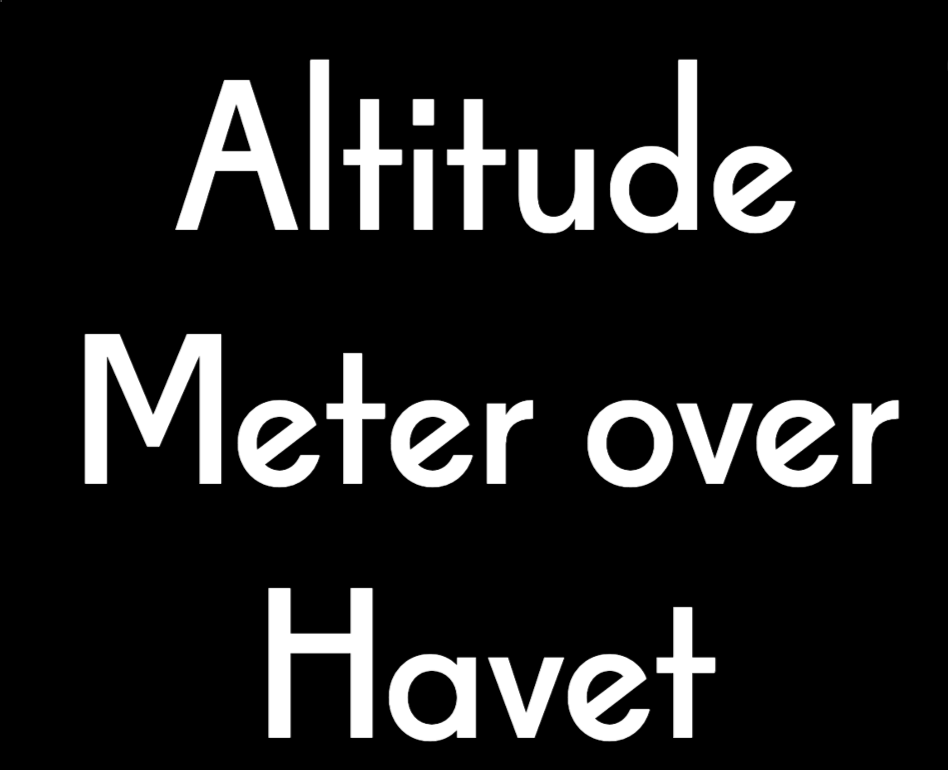
Antodits
Antodits is a handwritten font that looks similar to something we might scribble on a Post-it note, a moving box, or a label. If you want to give logos, hero images, social media banners, and other graphics a casual hand-drawn feel, this would be a fun one to play with.
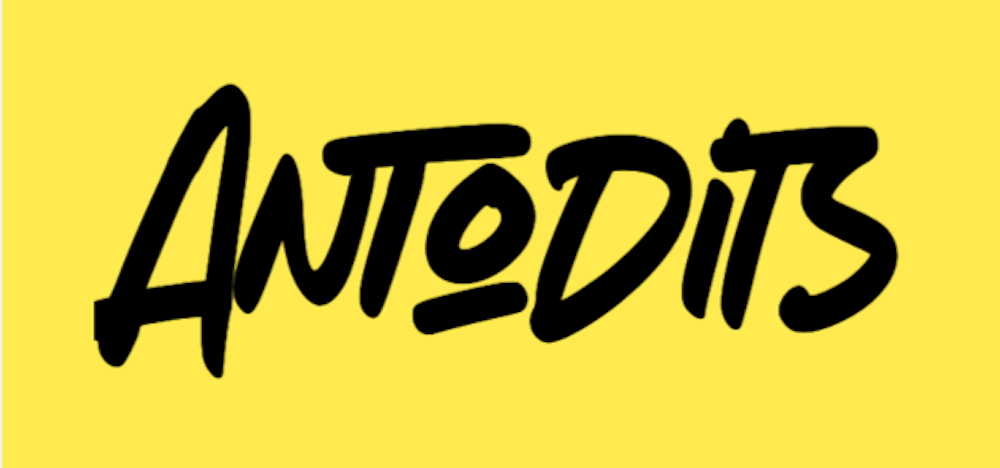
AW Conqueror Sans
AW Conqueror Sans is a combination of geometric and humanist sans serif styles. There are 16 styles available, and the font designer recommends using them for different moods or tones. The AW Conqueror Sans family could be the one you use for various brands while giving each a unique style of their own.
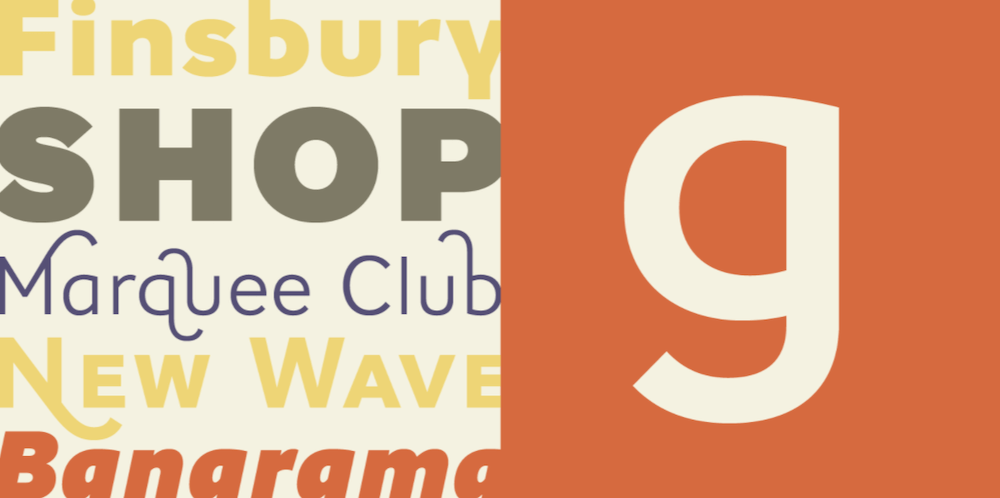
Birra
Birra is an interesting family of fonts. Unlike the usual typography styles and weights we’re accustomed to (e.g., Thin, Heavy, Italic), Birra’s styles are inspired by different types of beer and the breweries they’re found in — Stout, Saison, Pils, and more.
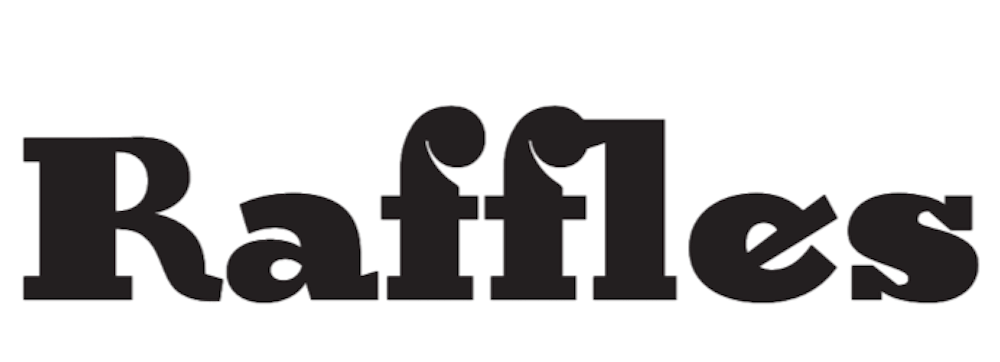
Boby Marlyn Script
Boby Marlyn Script is a delicate cursive font in just one style. The designer suggests using it for romantic themes, so it would go nicely with matters related to wedding planning, florist shops, relationship retreats, and parenting blogs. It could also work well on marketing images and banners around holidays like Valentine’s Day and Mother’s Day.
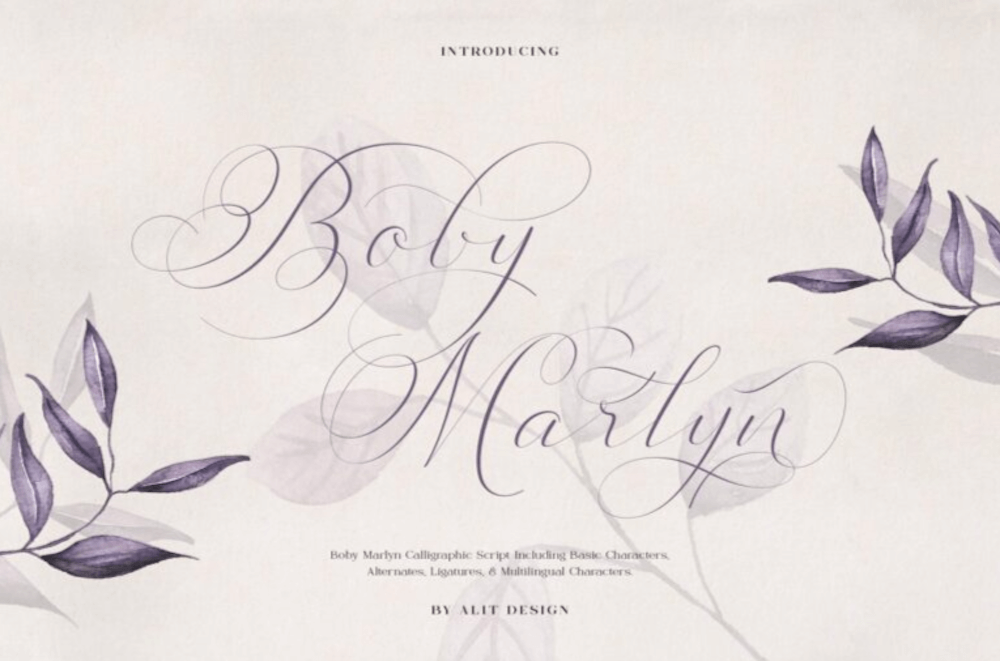
Delvard
The release of Delvard has brought us three new fonts: Delvard Serif Display, Delvard Serif Subhead, and Delvard Serif Text. There are 24 styles in this collection of art nouveau-inspired serifs, so there’s a lot you can do with this creative and legible font.
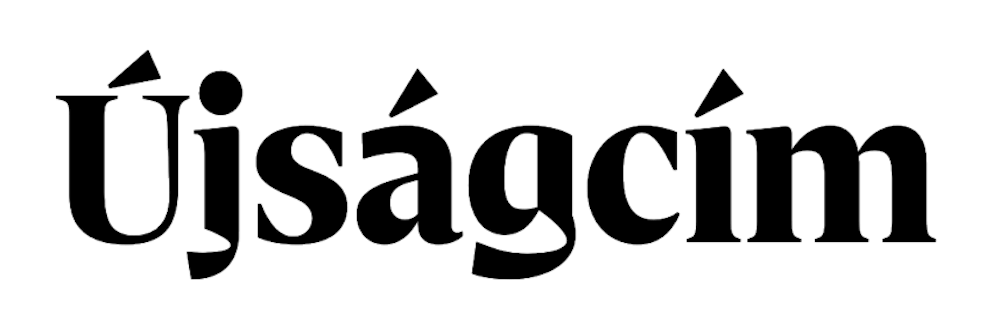
Evoque Text
Evoque Text is a humanist serif family of 14 fonts. While there are bold styles that would work effectively in headlines, this font was explicitly designed to give website visitors a comfortable reading experience over long passages.
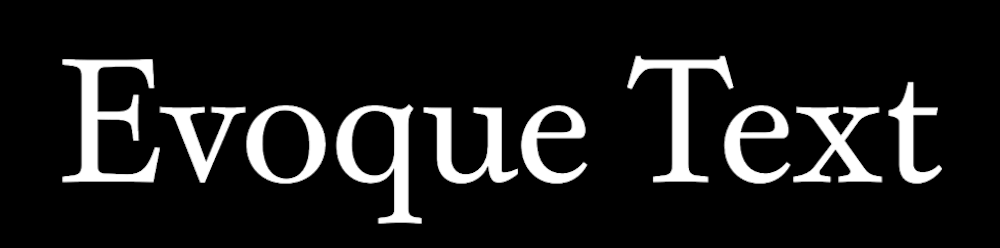
Forme
Forme Grotesque and Forme Grotesque Arabic is a sans serif font inspired by 19th century British Grotesque font styles. Forme Grotesque is a beautiful multilingual font that would be a great addition to various websites.
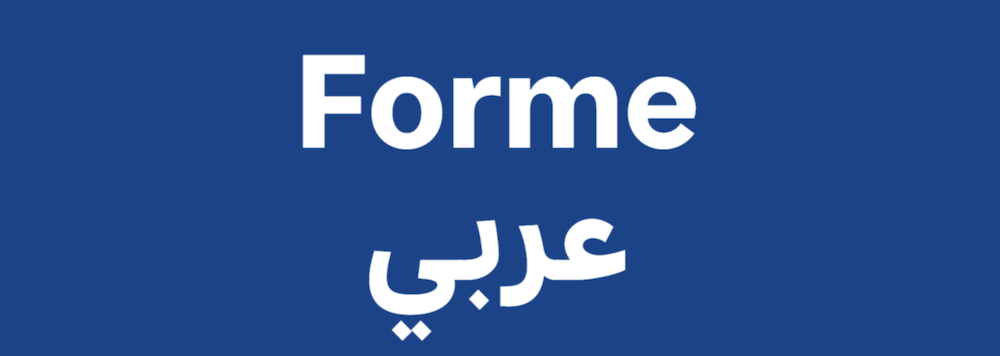
Gamer Station
Gamer Station comes in two styles: Regular and Outline. This cartoon-inspired typography would be a good one to use on websites that sell kids’ products and experiences — books, toys, entertainment centers, etc. It could also be instrumental in gaming app design.
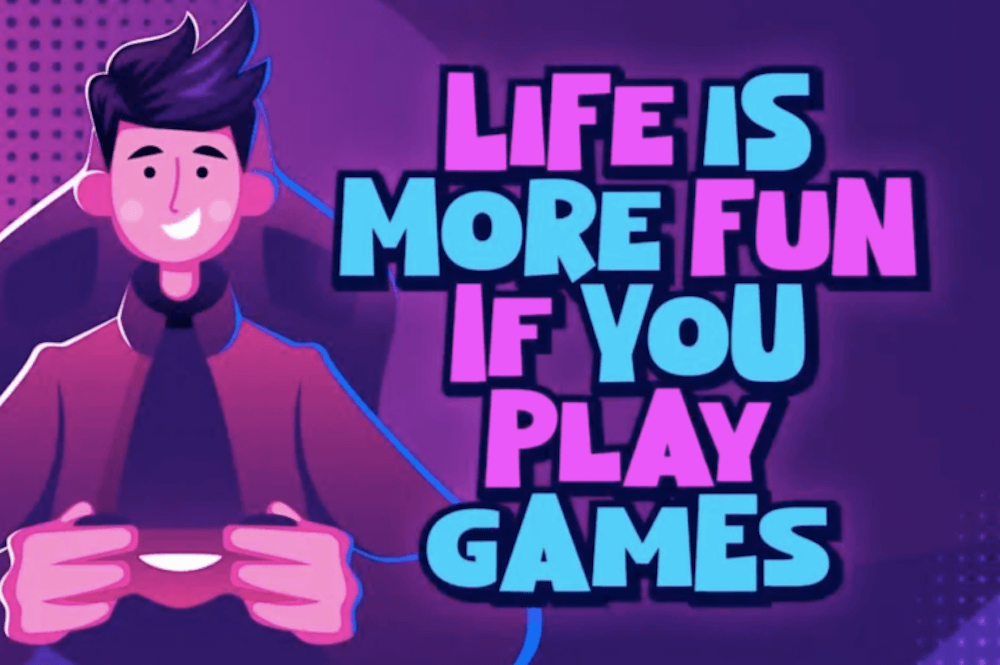
Hyperpolar
Hyperpolar is a retro all-caps font inspired by 1950s crime stories. While the gritty vibe is most obvious in the Brush styles, the Regular and Outline styles take a more subdued approach. If you’re looking to add drama or intrigue to your logo, headers, or marketing graphics, you have obvious and subtle ways of playing it up with this font.
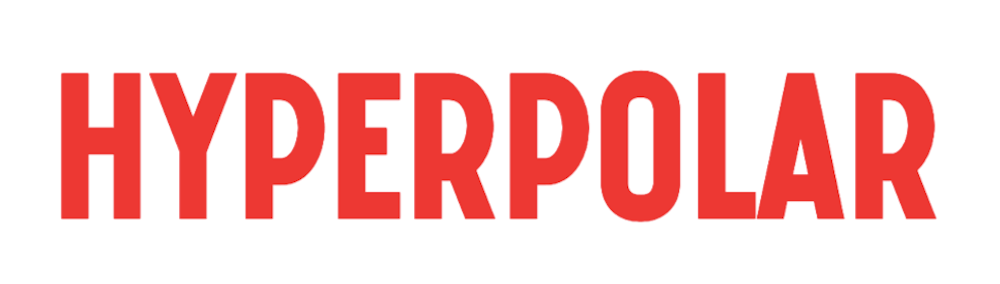
LargePoint
LargePoint is a bold sans serif font in two styles — Sharp and Rounded — with eight weights apiece. While the font was initially designed for a sports brand, it looks great in editorial headlines. So, if you’re designing a news site, blog, or literary publication that pushes out high-impact stories, consider using this font to style your headlines.
Monttocks Script Font
Monttocks Script Font is an elegant handwritten font that comes in two styles. The tight cursive lettering looks authentic, which could be an excellent way to add a personal touch to websites representing female entrepreneurs or small business owners. (Check out Marie Forleo’s site, and you’ll see what I mean.)
Räder
Räder is a sans serif font inspired by vintage road signage. Unlike today’s signage, old road signs prioritized both beauty and clarity of message. Because of its roots, this font and its 16 weights would be an effective way to design attention-grabbing headers.
Rosales
Rosales is a versatile humanist font. It comes with eight weights, eight italic variants, and two alternative sets of capital letters if you prefer something more stylistic than the basic sans serif. Because of the great variety in character sets and styles, Rosales can be used to improve the look and legibility of text in any part of your website or app.
Yellow Sunflower
Yellow Sunflower is a calligraphy font that exudes warmth and friendliness. There’s only one style available, and it would work best in display settings and in conjunction with a neutral sans serif.